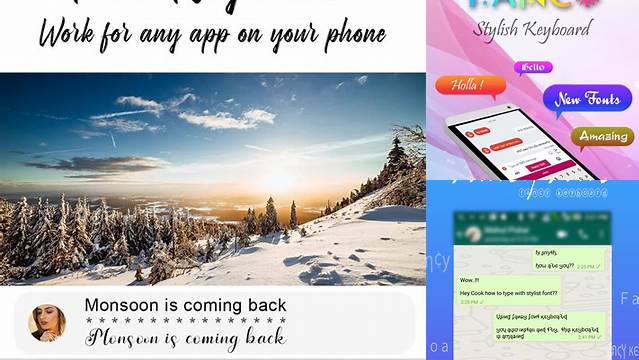
Stylish Fonts Keyboard: Download For Android & Customize Text
Are you looking to enhance your Android experience with stylish fonts? Guys, you're in the right place! In this comprehensive guide, we'll dive deep into the world of stylish fonts keyboards for Android, exploring how they can transform your device's look and feel. We'll cover everything from the benefits of using custom fonts to the best apps available for download, and even provide a step-by-step guide on how to install and use these keyboards. Let's get started and make your Android device stand out from the crowd!
Why Use a Stylish Fonts Keyboard?
Stylish fonts keyboards offer a fantastic way to personalize your Android device. Imagine being able to type in a variety of cool fonts directly from your keyboard, adding flair to your messages, social media posts, and documents. This level of customization can truly set your device apart, reflecting your unique personality and style. Using these keyboards, you can transform mundane text into eye-catching content that grabs attention. Think about it: a simple birthday wish in a unique font can make the message feel so much more special and heartfelt. Similarly, crafting engaging social media posts with stylish fonts can significantly boost your visibility and engagement. These keyboards aren't just about aesthetics; they're about making your digital communication more expressive and impactful. Moreover, the right font can also improve readability in certain contexts. For instance, a clear, elegant font can make reading lengthy emails or documents a more pleasant experience. The possibilities are endless, and the ability to switch between different fonts on the fly means you can always find the perfect style for any occasion. The ease of use is another major advantage. Most stylish fonts keyboards seamlessly integrate with your existing apps, allowing you to use custom fonts in messaging apps, social media platforms, email clients, and more. This means you don't have to jump through hoops or use complicated workarounds to enjoy stylish fonts everywhere you type. You can even create a consistent visual identity across all your digital platforms, reinforcing your personal or brand style. In a world where digital communication is king, standing out is more important than ever. A stylish fonts keyboard gives you a simple yet powerful tool to do just that. By adding a touch of personality and flair to your text, you can make a lasting impression and elevate your communication game.
Top Stylish Fonts Keyboard Apps for Android
When it comes to stylish fonts keyboard apps for Android, the Google Play Store is brimming with options. It can be overwhelming to choose the best one, so let's break down some of the top contenders. Each of these apps offers a unique set of features, fonts, and customization options, so you can find the perfect fit for your needs. One popular choice is Fonts Keyboard, which boasts a wide array of fonts, from elegant scripts to playful designs. This app is particularly user-friendly, making it easy to switch between different fonts and apply them in your favorite apps. Fonts Keyboard also offers a selection of symbols and emojis, allowing you to further enhance your messages and posts. Its intuitive interface and extensive font library make it a favorite among users looking to add a touch of style to their text. Another standout app is Stylish Text, which goes beyond just fonts, offering a variety of text decorations and styling options. With Stylish Text, you can create bold, italic, underlined, and strikethrough text, as well as apply a range of unique text effects. This app is perfect for those who want to truly customize their text and make it stand out. Stylish Text also includes a floating toolbar that provides quick access to its features, making it incredibly convenient to use. For those seeking a more minimalist approach, Cool Fonts for Instagram is a great option. While its name suggests a focus on Instagram, this app can be used in any app that supports text input. Cool Fonts for Instagram offers a curated selection of stylish fonts that are particularly well-suited for social media posts. Its simple interface and focus on quality over quantity make it an excellent choice for users who prefer a streamlined experience. Beyond these top picks, there are many other stylish fonts keyboard apps worth exploring. Some apps specialize in particular styles, such as calligraphy fonts or graffiti fonts, while others offer a broader range of options. When choosing an app, consider factors such as the number of fonts available, the ease of use, the level of customization offered, and the app's compatibility with your favorite apps. Don't be afraid to try out a few different apps to see which one best suits your needs and preferences. With the right stylish fonts keyboard app, you can transform your Android device into a personal expression of your unique style.
Using Your New Stylish Fonts Keyboard
Now that you've downloaded and installed your stylish fonts keyboard, it's time to put it to use! The process of using these keyboards is generally very intuitive, but let's break it down to ensure you get the most out of your new tool. First, open any app where you want to use your stylish fonts. This could be a messaging app like WhatsApp or Telegram, a social media platform like Instagram or Facebook, or even a note-taking app. When you tap on a text input field, your new stylish fonts keyboard should appear. If it doesn't, make sure it's set as your default keyboard in your device's settings, as we discussed earlier. Once the keyboard is visible, you'll notice a range of font options. Most apps display these fonts in a clear and easy-to-access manner, often with a preview of how the text will look in each font. To switch fonts, simply tap on the one you want to use. The keyboard will then switch to that font, and any text you type will be displayed in the selected style. Many stylish fonts keyboards also offer additional features, such as symbols, emojis, and text decorations. These can be accessed through dedicated buttons or menus on the keyboard. Experiment with these features to add even more personality to your messages and posts. Some apps allow you to customize your keyboard further, such as changing the keyboard's theme or adjusting the size and layout of the keys. These customization options can help you create a keyboard that perfectly suits your preferences and typing style. When using stylish fonts, it's important to consider the context and audience of your message. While a playful font might be perfect for a casual message to a friend, it might not be appropriate for a professional email. Choose fonts that are readable and align with the tone of your communication. Also, keep in mind that some fonts may not be supported on all devices or platforms. If you're sending a message to someone who doesn't have the same font installed, they may see a different font or a default font instead. To ensure your message is displayed as intended, it's a good idea to use common fonts for important communications. However, for social media posts and personal messages, you can feel free to experiment with more unique and creative fonts. Using a stylish fonts keyboard can add a fun and expressive element to your digital communication. With a little practice, you'll be able to effortlessly switch between fonts and create messages that stand out from the crowd.
Choosing the right font can make a significant difference in how your message is perceived. Guys, it's not just about picking something that looks cool; it's about selecting a font that effectively conveys your message and resonates with your audience. Let's explore some tips to help you make the best font choices for various situations. First and foremost, consider the context of your message. Is it a casual message to a friend, a professional email, or a social media post? The context should heavily influence your font selection. For casual messages, you can afford to be more playful and experiment with fun, whimsical fonts. However, for professional communications, it's best to stick to clear, readable fonts that convey professionalism and competence. Think about fonts like Arial, Calibri, or Times New Roman for formal settings. For social media posts, you have a bit more leeway, but it's still important to choose fonts that are easy to read and visually appealing. A font that's too ornate or difficult to decipher can turn off your audience and detract from your message. Next, think about your audience. Who are you communicating with? What are their preferences and expectations? If you're targeting a younger audience, you might be able to get away with more trendy and unconventional fonts. However, if you're communicating with a more conservative audience, it's best to stick to classic, professional fonts. Consider the tone of your message as well. Is it meant to be serious, humorous, or heartfelt? The font you choose should align with the tone you're trying to convey. A bold, impactful font might be suitable for a message that's meant to be assertive or attention-grabbing, while a delicate, flowing font might be better for a message that's meant to be romantic or sentimental. Readability is also a crucial factor to consider. No matter how stylish a font looks, it's not a good choice if it's difficult to read. Avoid fonts that are too thin, too ornate, or have too much spacing between letters. The goal is to make your message as easy as possible to understand, so choose fonts that are clear and legible. Another tip is to use font pairings effectively. Combining different fonts can add visual interest to your message, but it's important to do it thoughtfully. A general rule of thumb is to pair a decorative font with a simple, neutral font. This creates a balance and prevents your message from looking too cluttered or overwhelming. Finally, don't be afraid to experiment! Try out different fonts and see what works best for you. Most stylish fonts keyboard apps offer a wide range of options, so you have plenty of choices to explore. With a little practice and attention to detail, you can master the art of font selection and enhance your communication in countless ways.
In conclusion, a stylish fonts keyboard is a fantastic way to personalize your Android device and add a touch of flair to your digital communication. Guys, by exploring the various apps available, understanding how to install and use them, and learning tips for choosing the right fonts, you can transform your texting experience and make your messages truly stand out. Whether you're crafting a casual message to a friend, composing a professional email, or creating an engaging social media post, a stylish fonts keyboard gives you the tools to express yourself in a unique and impactful way. Remember to consider the context and audience of your message when choosing a font, and don't be afraid to experiment with different styles to find what works best for you. With the right font, you can enhance the readability, tone, and overall impact of your communication. And if you encounter any issues along the way, the troubleshooting tips we've covered should help you resolve them quickly and easily. So go ahead, download a stylish fonts keyboard, and start adding some personality to your text today! Your Android device will thank you for it, and your friends and followers will surely notice the extra touch of style you've added to your messages and posts. Embrace the world of stylish fonts and let your creativity shine!